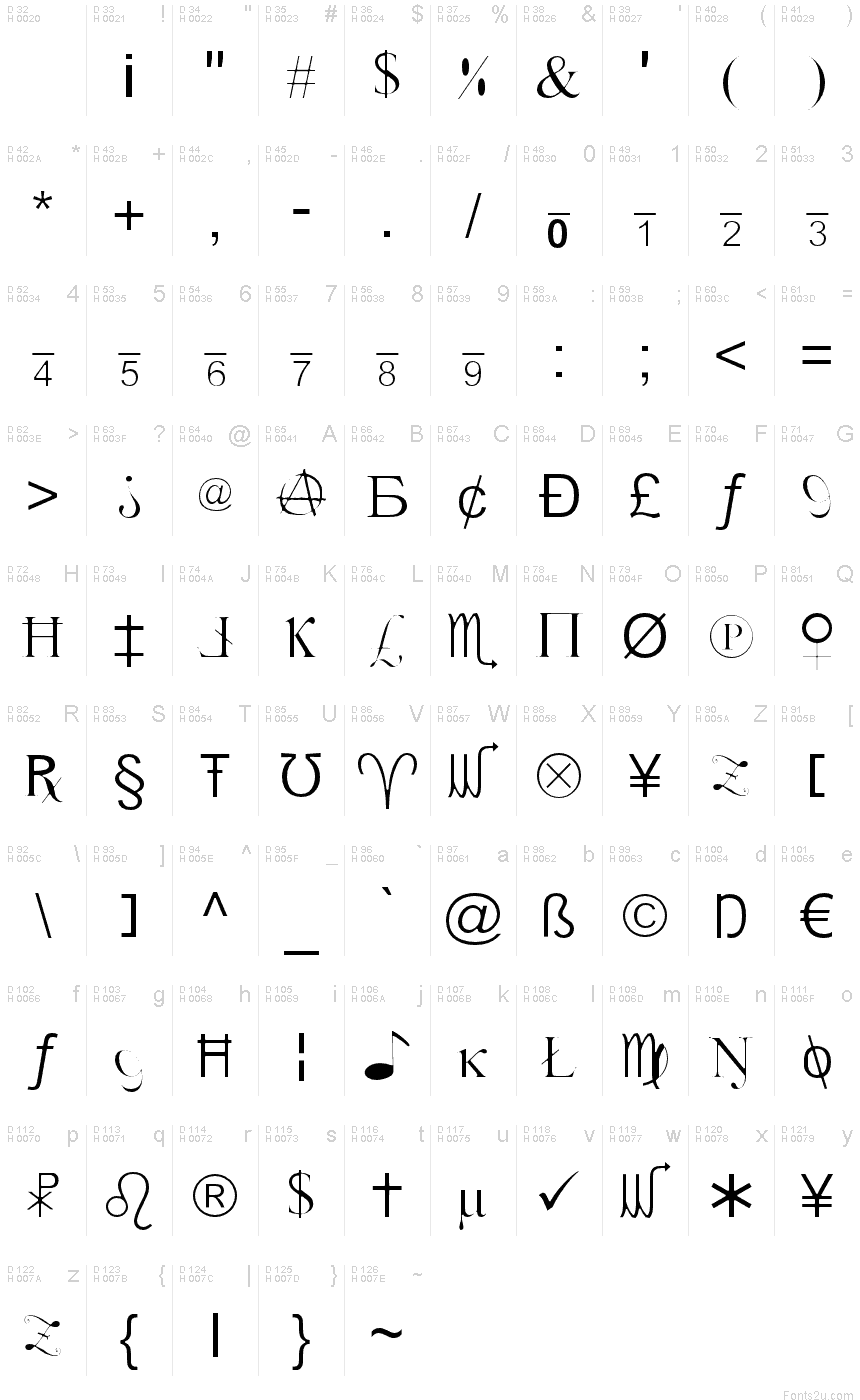
X-Cryption Light by Iconian Fonts is a free experimental display font with a coded, high-fashion edge. Its letters splice elegant serif structures with currency signs, mathematical marks, and abrupt geometric cuts. Needle-thin lines meet broad black strokes, and several letters break into offset or crossed parts.
Cyberpunk themes make it apt for science-fiction posters. Game title screens, electronic album covers, fashion labels, and underground music promotions all suit its collision of luxury typography and hacked-symbol imagery, especially for audiences drawn to cryptic visual culture.